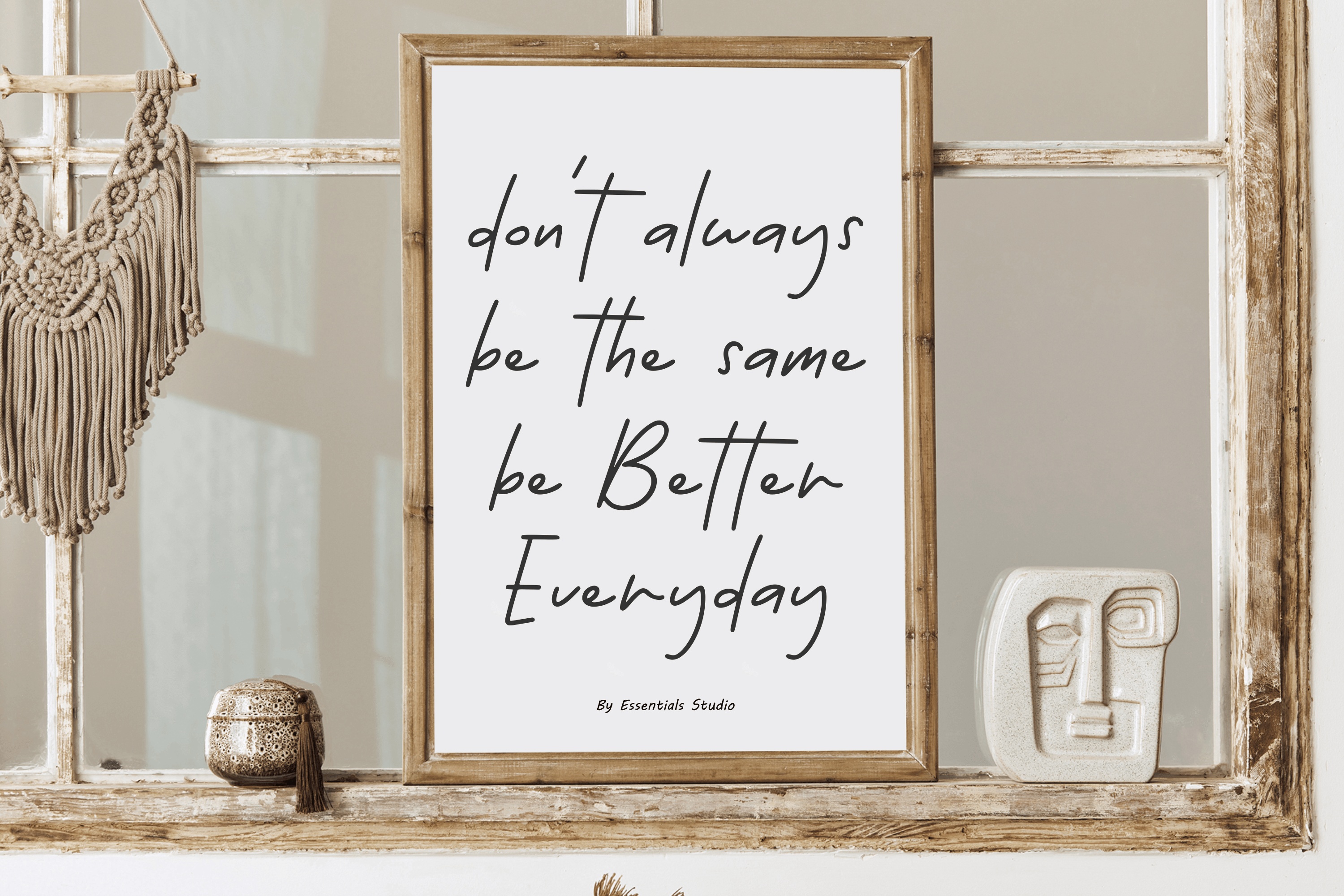
Essentials Handwriting Font
Essentials Handwriting is a beautifully crafted handwritten font by Essentials Studio, perfect for adding a personal touch to your designs. Whether you’re creating quote designs, birthday invitations, craft projects, books, planners, or other creative works, this font brings warmth and authenticity to your projects.
Enhance your designs with the charming style of Essentials Handwriting and bring your ideas to life with ease.